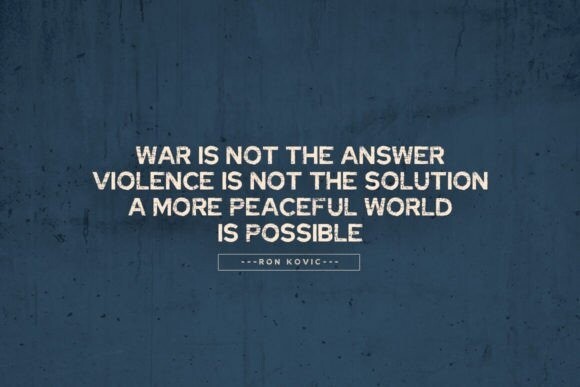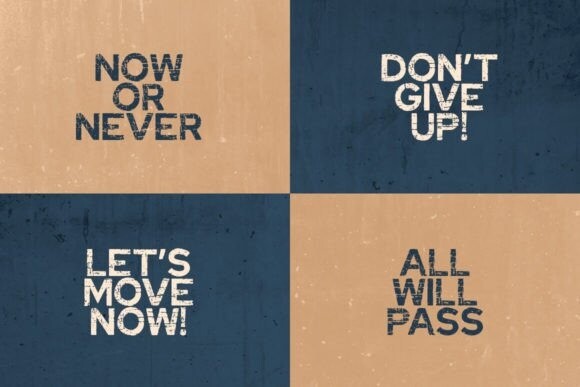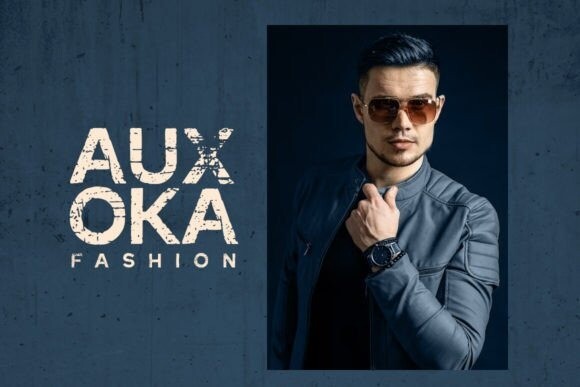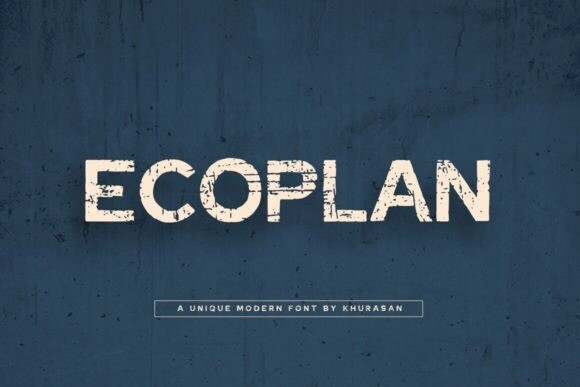
Ecoplan Font
Ecoplan Font is a sans serif display font inspired by chunky yet funky type. perfect for posters, logos, magazines, book covers, banners, and many more! Get this quirky font, and use it to create lovely designs! It can easily be matched to an incredibly large set of projects, so add it to your creative ideas and notice how it makes them stand out!